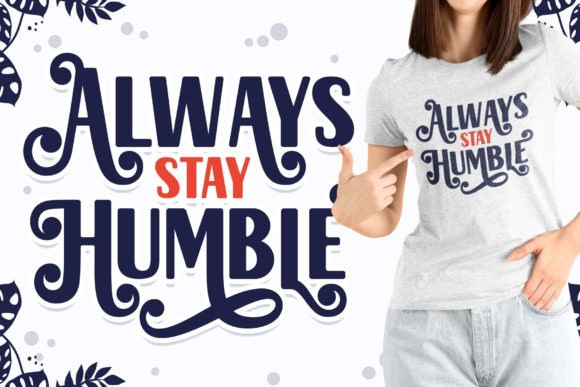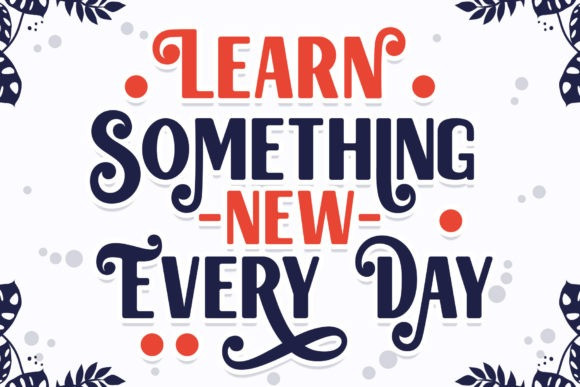
Magical Bright Font
Magical Bright Font is a beautiful and elegant Display font. It has a classy, unique and modern look that can be used for logos, branding, invitations, stationery, wedding designs, greetings card, social media posts, and much more!